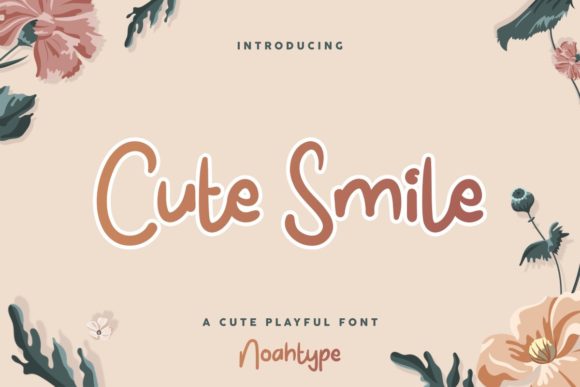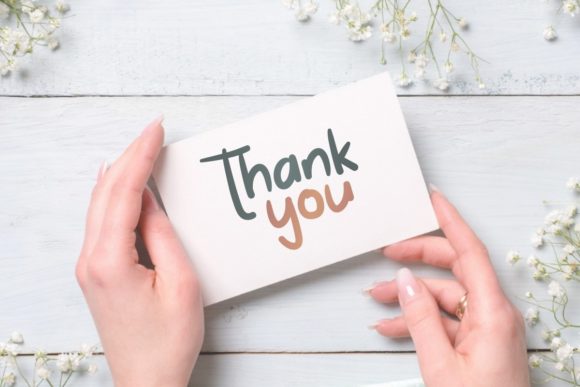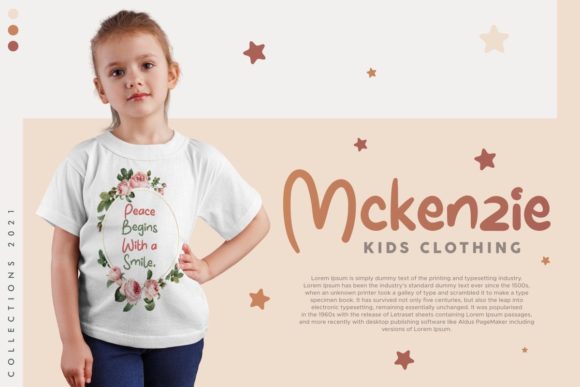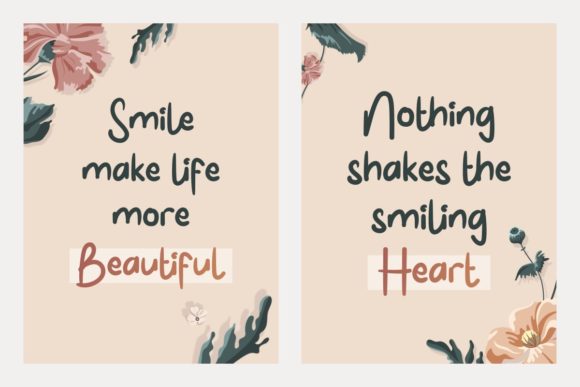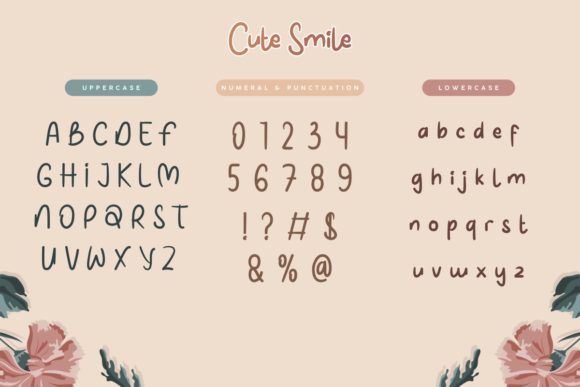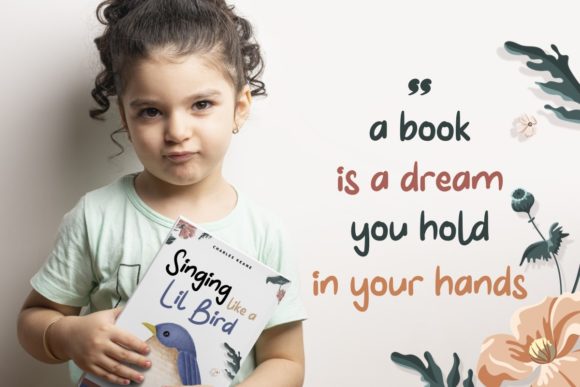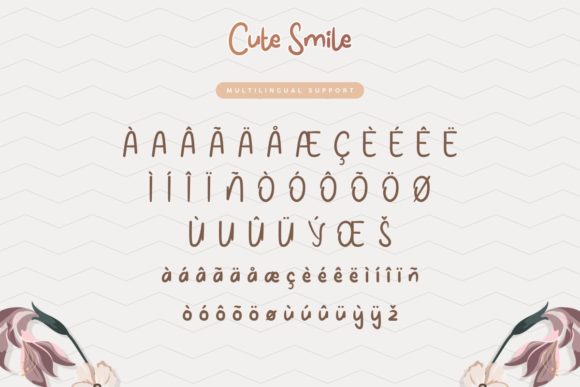
Cute Smile Font
About Cute Smile Font
Cute Smile is a stylish and incredibly elegant script font. It looks stunning on wedding invitations, thank you cards, quotes, greeting cards, logos, business cards and every other design which needs a handwritten touch.